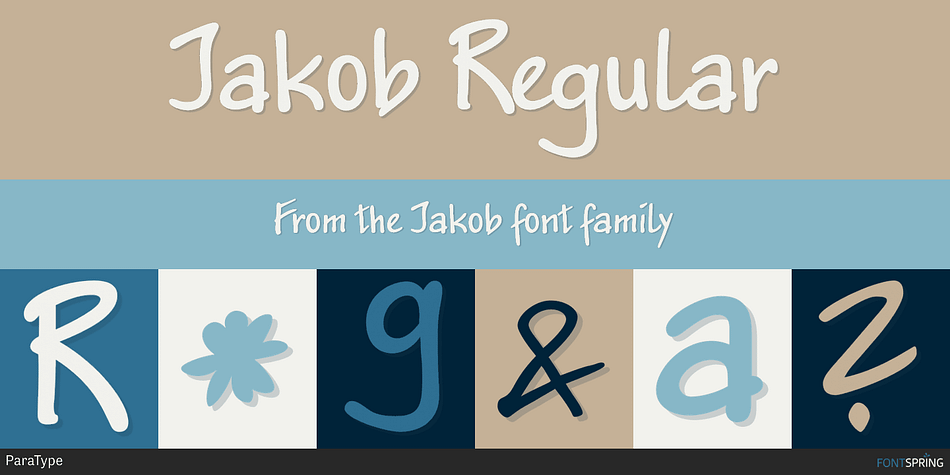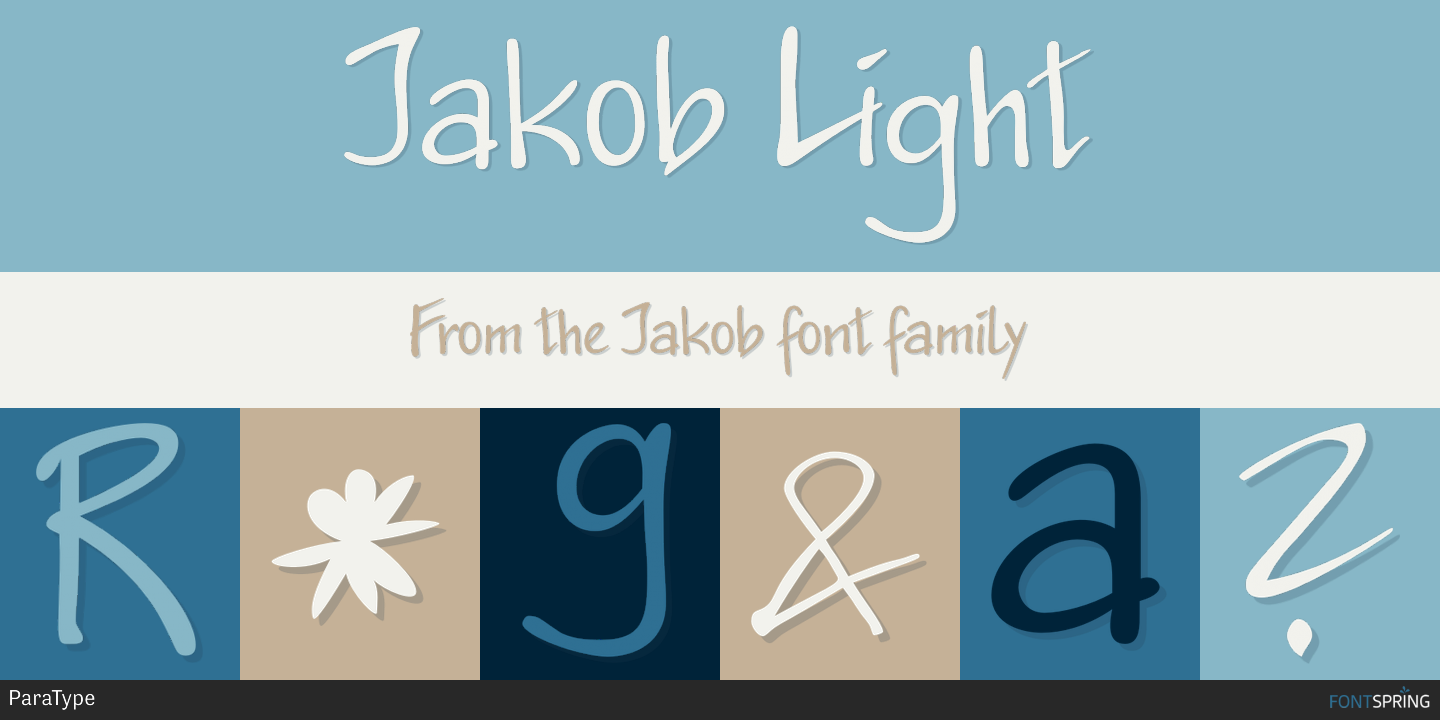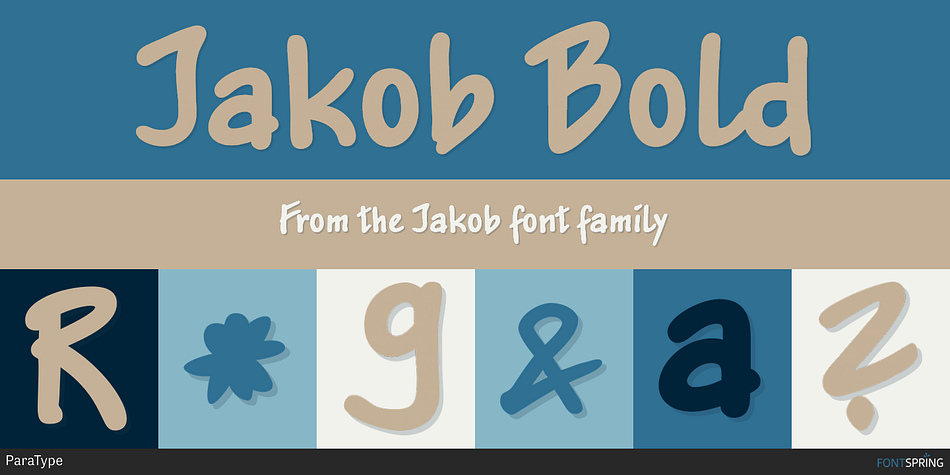
Designed by Alexander Tarbeev, Jakob is a hand drawn font family. This typeface has three styles and was published by ParaType.
Designed at ParaType (ParaGraph) in 1994 by Alexander Tarbeev. Based on informal handwriting. For use in advertising and display typography.
Designer | Alexander Tarbeev |